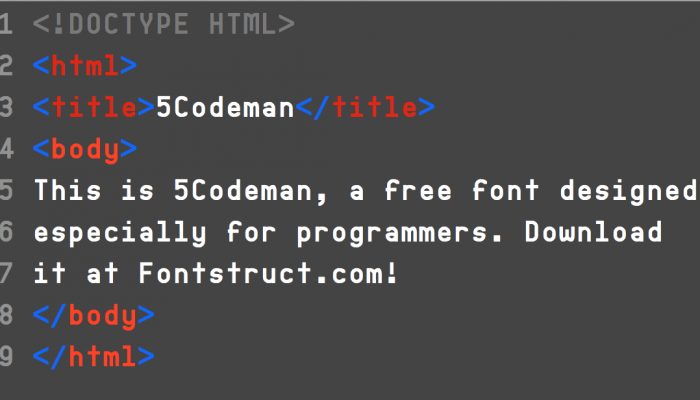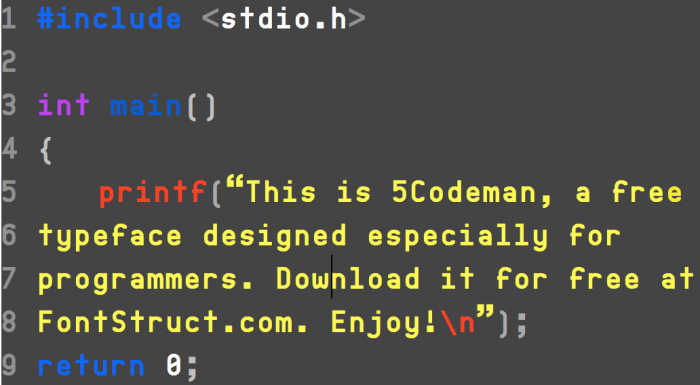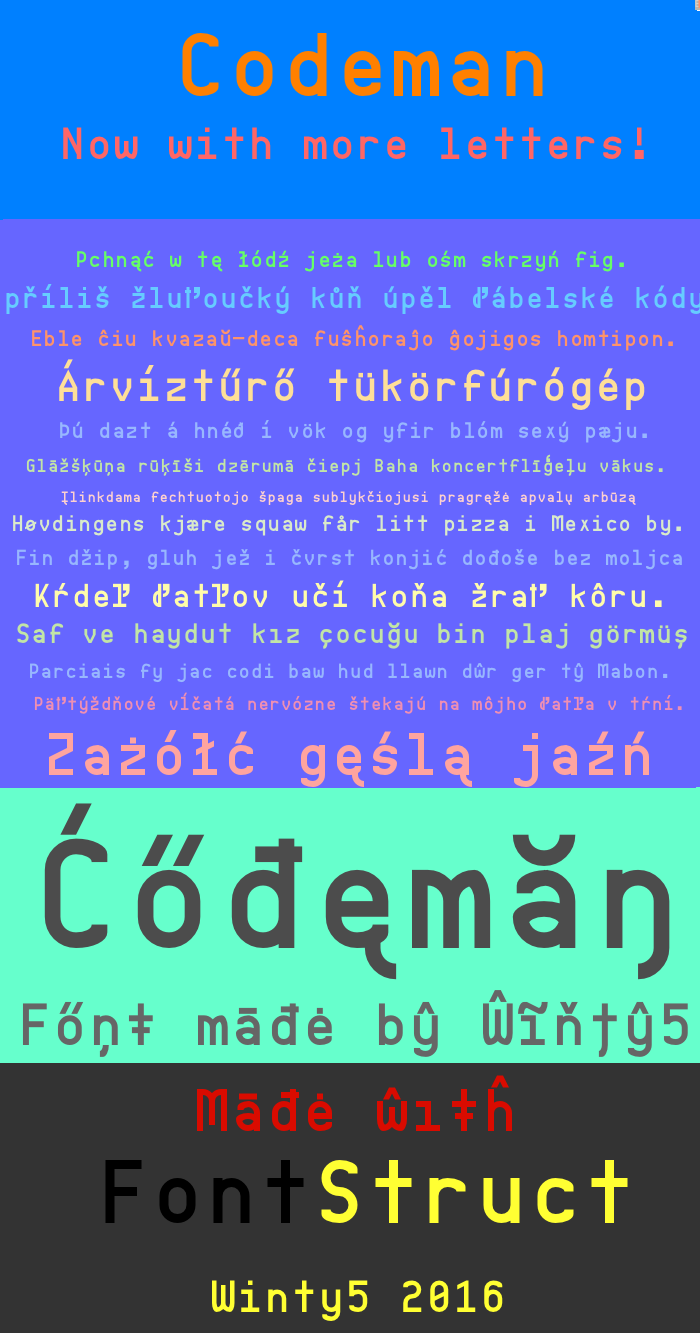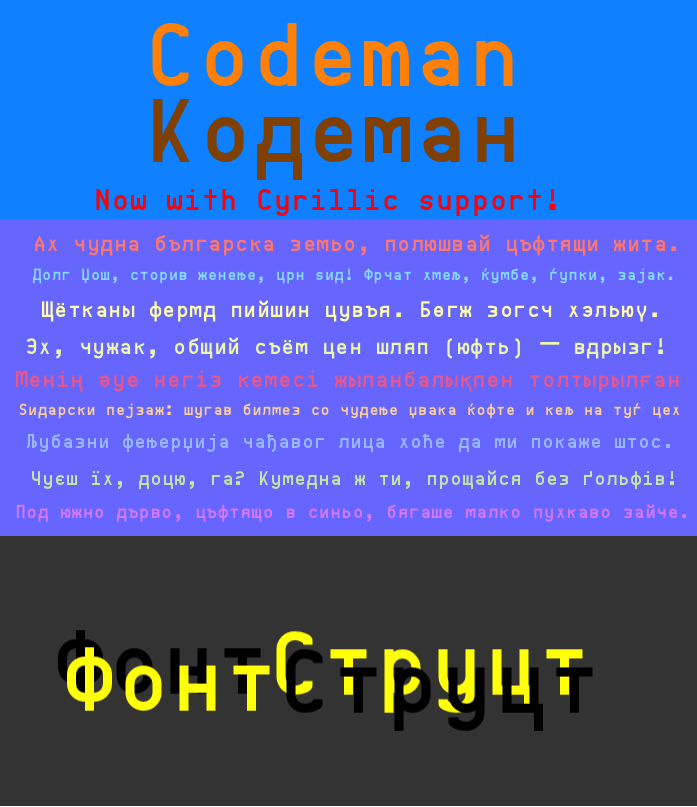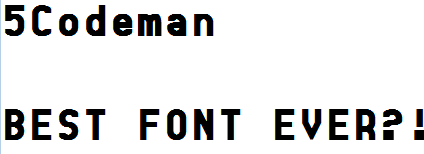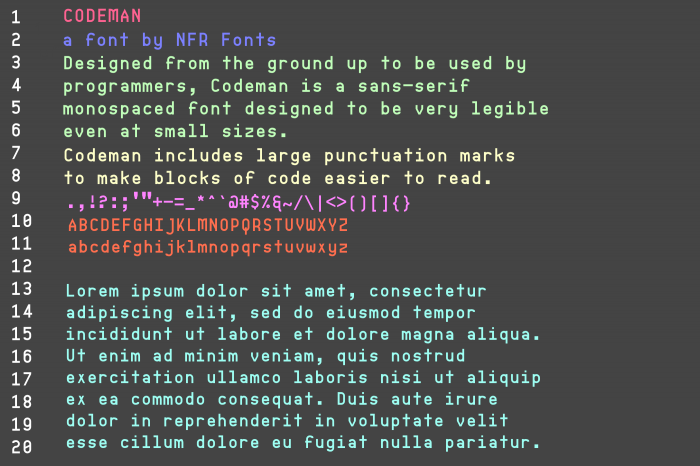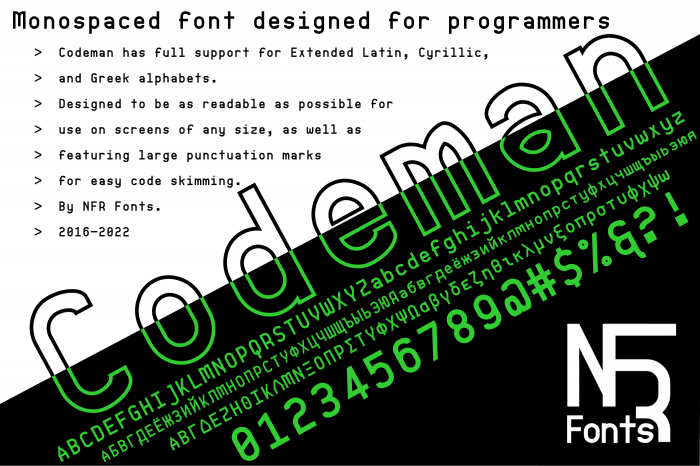
Codeman
by Noah F. Ross (winty5)
A simple, legible monospaced sans font for programmers. Has big punctuation marks.
I am debating on whether or not to add overshoots. Tell me what you think.
Here's a basic HTML sample. I might add some samples in other programming languages later.
Here's a sample in C.
Whoops, forgot the closing curly bracket in the last sample. Sorry!
*UPDATE*
Added lowercase æ and œ.
*UPDATE*
Added Extended Latin A
A neat sans serif with many surprising features. Congratulations on the TP :)
I will continue to add more characters if you guys want me to.
Very nice monospaced font, with a great extended letter set! Some of the letter shapes work especially well, like M, Q, W, and Y. The "k" might look a little better if the upper arm has more slant, and its end is flat on top, instead of on the side. I really like the unconventional shape of the "?". 10/10
Now to finish Cyrillic.
Cyrillic now done. Greek is next.
If I could have some input on the Cyrillic that would be nice.
@spider257: Yes, I was inspired by different monospaced fonts, I wanted to create one that was both legible and stylish
@Piepie16: this is the original Codeman font.